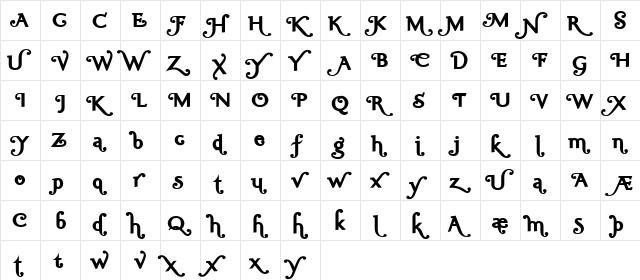
Ela Swashes Black Regular
Design Context for Ela Swashes Black Typeface
Ela Swashes Black brings a calligraphic fluidity to the page — its connecting strokes and expressive curves give it an unmistakably human quality.
Font Pairing: Combine Ela Swashes Black with a simple geometric sans for maximum contrast — the tension between flowing curves and clean structure is a classic typographic pairing.
Pro Tip: Pair Ela Swashes Black with a clean sans-serif for supporting text. The contrast between fluid script and geometric structure creates an elegant typographic hierarchy.